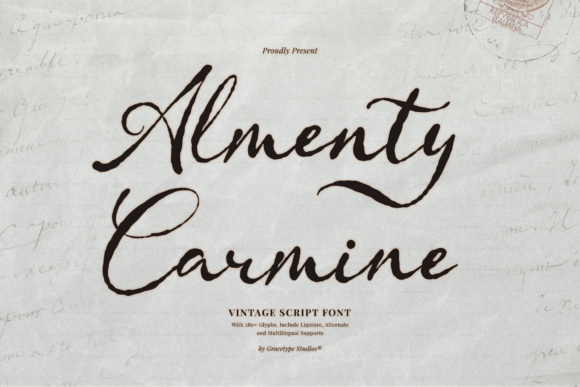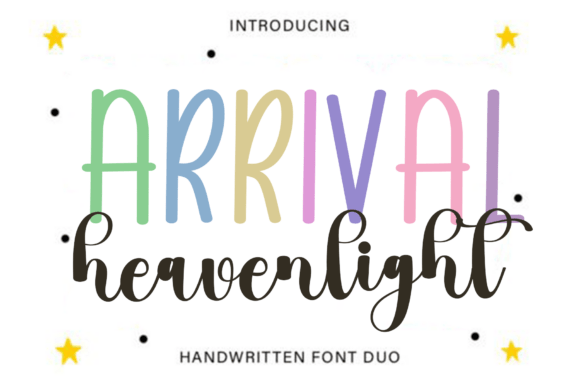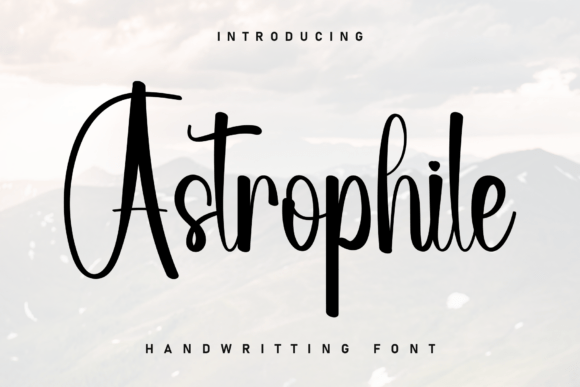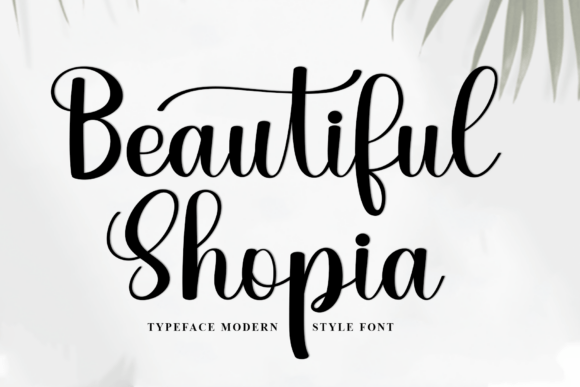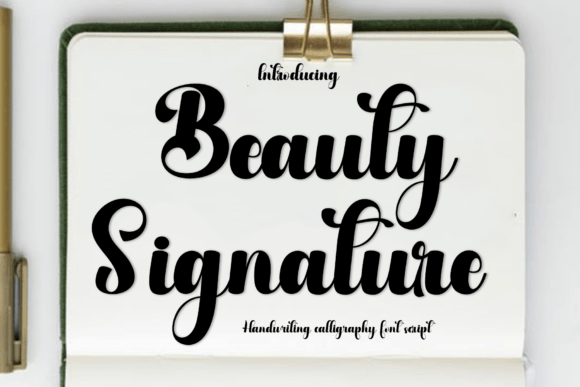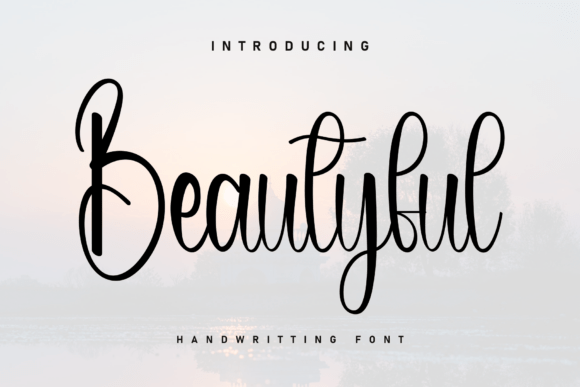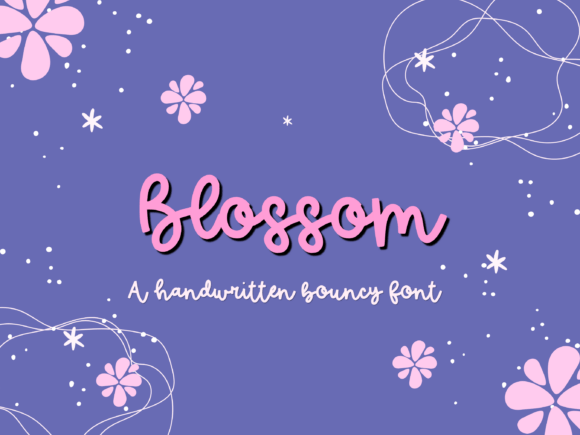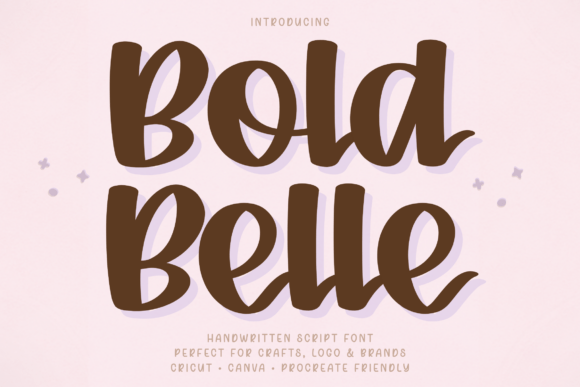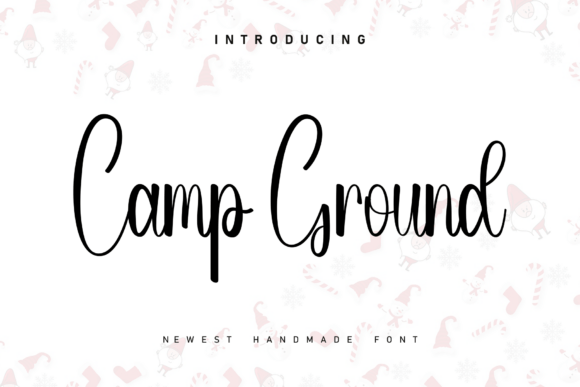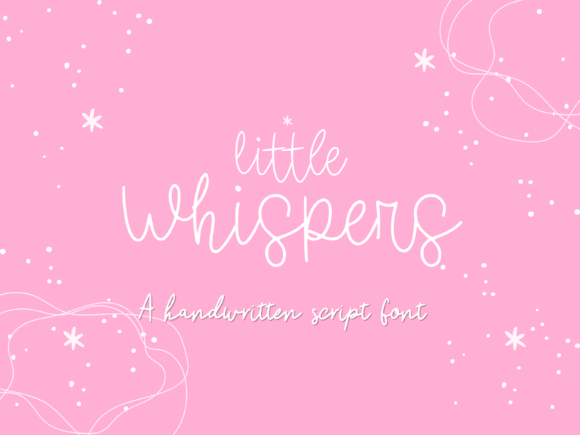
36 Exquisite Script Fonts to Elevate Your Professional Design Projects
Finding the perfect balance between artistic flair and legibility is the key to creating high-end imagery. Whether you are building a luxury brand or designing delicate wedding stationery, choosing the right Script Fonts can completely redefine the emotional impact of your layout.
Why You Should Use Script Fonts in Your Professional Branding
Integrating a curated style into your workflow adds a layer of humanity and bespoke craftsmanship that standard sans-serifs simply cannot match. Here are thirty-six top-tier options to help you stand out.
Camp Ground Script Font
Camp Ground
Camp Ground is an atmospheric lettering font that perfectly captures the spirit of adventure, making it an excellent choice for cozy logos, apparel graphics, or stylish handmade-style typography. This typeface stands out for its warm, casual aesthetic.
Golden Daylight Script Font
Golden Daylight
This exquisite typeface is a standout, perfectly crafted for elegant wedding invitations, luxury branding projects, and sophisticated greeting card designs.
Elegance Script Font
Elegance
Elegance is a sophisticated addition to design libraries, offering a refined, artistic flair perfect for crafting stunning wedding invitations and high-end editorial designs.
Question Script Font
Question
This exquisite choice features a sophisticated, flowing aesthetic that makes it the perfect fit for wedding stationery, high-end branding, and elegant editorial design.
Friday Authentic Script Font
Friday Authentic
Friday Authentic is a sophisticated handwritten font that perfectly captures the charm of natural penmanship. It is inspired by authentic calligraphy and is ideal for stylish headers.
Saturday Sniping Script Font
Saturday Sniping
This graceful typeface is perfect for crafting stylish wedding invitations and professional branding. It offers a light and fluid elegance that makes every project look truly bespoke.
Beautiful Shopia Script Font
Beautiful Shopia
An elegant addition perfect for crafting premium branding and stylish typography. Its graceful strokes add a touch of luxury and professional flair to any design project.
Arrival Heavenlight Script Font
Arrival Heavenlight
Arrival Heavenlight is an elegant and graceful choice perfect for wedding invitations and premium branding. This typeface adds a touch of romance to any layout.
Fleurina Script Font
Fleurina
Fleurina is an elegant, fluid typeface that perfectly embodies the charm of premium typography, making it an excellent choice for wedding stationery and luxury logo design.
Astrophile Script Font
Astrophile
Astrophile is an elegant handwriting font perfect for creating romantic wedding invitations. Its fluid lines add a touch of refinement to any design.
Beautyful Script Font
Beautyful
Beautyful is an elegant and sophisticated choice, perfect for crafting luxury branding and high-end design projects. Its fluid, graceful lines add authenticity to any layout.
Chick Garden Script Font
Chick Garden
Chick Garden is a charming and playful addition, perfect for crafting adorable invitations and children’s party decor. Its whimsical style adds warmth to any project.
Yearling Script Font
Yearling
Yearling is a charming and playful typeface, perfect for creating heartwarming greeting cards and branding projects that require a cozy, handwritten feel.
Youthink Script Font
Youthink
This elegant handwriting typeface is perfect for creating stylish wedding invitations, branding, and artistic projects, adding a touch of modern grace.
Cautious Script Font
Cautious
This elegant script font is perfect for crafting stylish wedding invitations and greeting cards, adding a touch of sophistication and personality to your projects.
Gogo Mumbo Script Font
Gogo Mumbo
Gogo Mumbo is a playful and stylish typeface, perfect for crafting unique logos and cheerful event invitations. This font adds a touch of creative personality.
Fedley Script Font
Fedley
Fedley is an elegant and sophisticated choice, perfect for premium branding and adding exquisite details to your design projects. Its calligraphy brings timeless charm to any layout.
Mazera Script Font
Mazera
Mazera is an elegant and modern script font, perfect for crafting sophisticated wedding invitations, professional branding, and eye-catching headlines.
Kandy Line Script Font
Kandy Line
Kandy Line is a charming and playful addition, perfect for creating whimsical logos and handmade-style branding. Its sweeping lines bring personality to any creative project.
Font Script Font
Font
An elegant font that will perfectly complement your project with its sophisticated calligraphic appearance and balanced stroke weight.
Wildberry Script Font
Wildberry
Wildberry is a charming and playful script font that is perfect for crafting unique wedding invitations and branding projects. Its organic lines bring a warm aesthetic.
Wishlist Travel Script Font
Wishlist Travel
This elegant handwritten typeface is a perfect choice for romantic wedding invitations and sophisticated branding. Its sweeping strokes bring an artistic aesthetic to any design.
Black Virtha Script Font
Black Virtha
Black Virtha is a sophisticated and bold calligraphic typeface, perfect for crafting elegant logos and stylish headlines. It brings modern luxury and refinement to any design.
Almenty Carmine Script Font
Almenty Carmine
Almenty Carmine is a sophisticated and elegant addition, perfect for designing wedding invitations, luxury branding, and crafting refined, high-end logos.
Summer Notes Script Font
Summer Notes
This elegant handwriting style is perfect for crafting romantic invitations and bespoke branding. It infuses your designs with effortless grace and a nostalgic aesthetic.
Annabelle Script Font
Annabelle
This graceful handwritten typeface is perfect for crafting elegant wedding invitations, sophisticated branding, and custom calligraphy designs.
Mestina Bohoniy Script Font
Mestina Bohoniy
Mestina Bohoniy is an elegant script font featuring refined calligraphic details, making it the perfect choice for wedding stationery and luxury branding.
Family Thanksgiving Script Font
Family Thanksgiving
Family Thanksgiving is an elegant and modern handwritten typeface, perfect for creating charming holiday invitations and stylish lettering projects that require a warm aesthetic.
Beauty Signature Script Font
Beauty Signature
Beauty Signature is an elegant choice perfect for wedding stationery and beauty branding. This style adds a refined, personalized touch, capturing authentic handwriting.
Megan Allyn Script Font
Megan Allyn
Megan Allyn is an elegant and sophisticated choice, perfect for luxury branding and high-end typographic designs. Its flowing strokes add an artisanal charm.
Little Whispers Script Font
Little Whispers
Little Whispers is a charming and delicate handwritten typeface, perfect for crafting romantic invitations, wedding stationery, and elegant aesthetic branding.
Magical Script Font
Magical
This graceful script font is perfect for creating romantic wedding invitations and heartfelt greeting cards. Its fluid lines bring a unique artistic charm to projects.
Blossom Script Font
Blossom
Blossom is an elegant and sophisticated font perfect for wedding stationery and high-end logo design. Its fluid strokes add a touch of professional grace to any project.
Unicorn Script Font
Unicorn
This charming handwritten typeface is perfect for crafting whimsical designs and children’s invitations. It adds a touch of tenderness and magical elegance.
Bold Belle Script Font
Bold Belle
Bold Belle is an elegant and stylish typeface, perfectly suited for crafting sophisticated wedding invitations and premium branding. It adds a touch of unique character.
Sugar Prep Script Font
Sugar Prep
Sugar Prep is an enchanting and playful handwritten typeface, perfect for creating stylish invitations, greeting cards, and handmade-inspired logos.
Conclusion: Final Design Tips
When using these assets, remember to pair your chosen style with clean fonts to ensure readability. Experiment with tracking and leading to breathe life into your text. Whether you are aiming for whimsical or ultra-professional designs, our collection of Script Fonts provides the versatility you need to succeed. Be sure to check our Display Fonts category as well for bold, secondary typography.